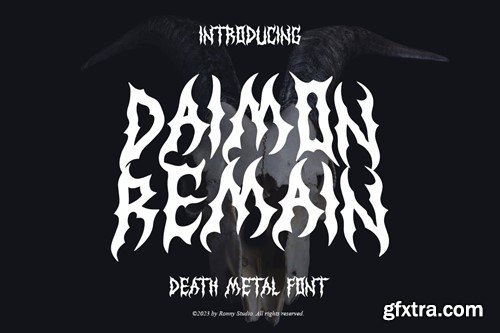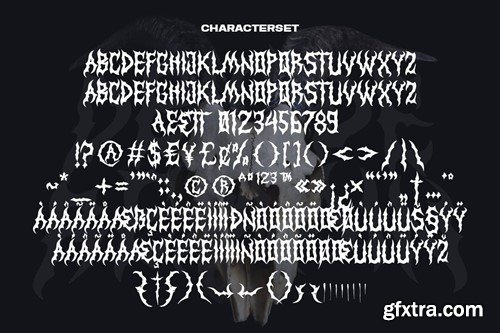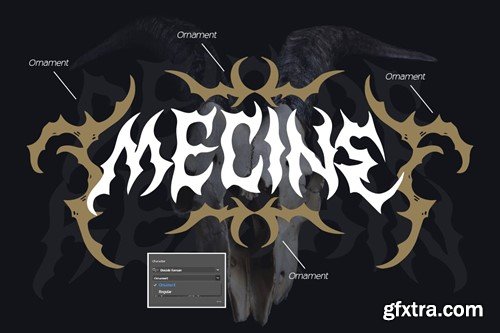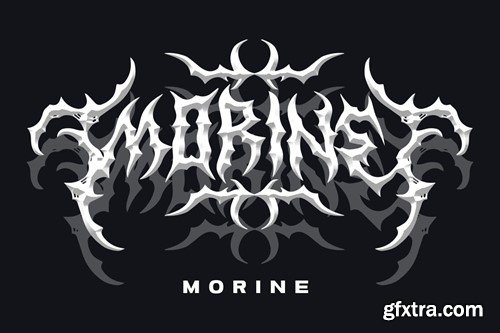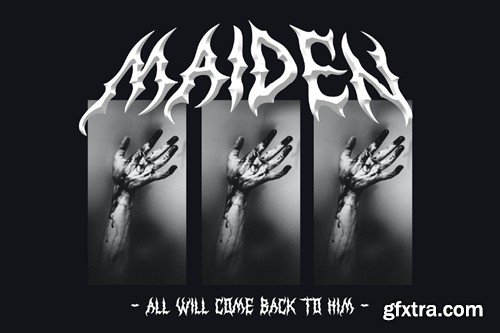
Daimon Remain - Death Metal Font
Daimon Remain Font is a cool alternative for you to easily create your Underground band logo or whatever. Using alternative fonts and ornaments will liven up the font and will look cooler and fiercer. It comes with a basic character set and a small group of symbols and signs frequently used in the extreme music sector - Death- and Blackmetal classics such as pentagram drops, roots, wings and more. Files include : Features : Please contact us if you have any questions. Enjoy Crafting and thanks for supporting us! :) Thank you